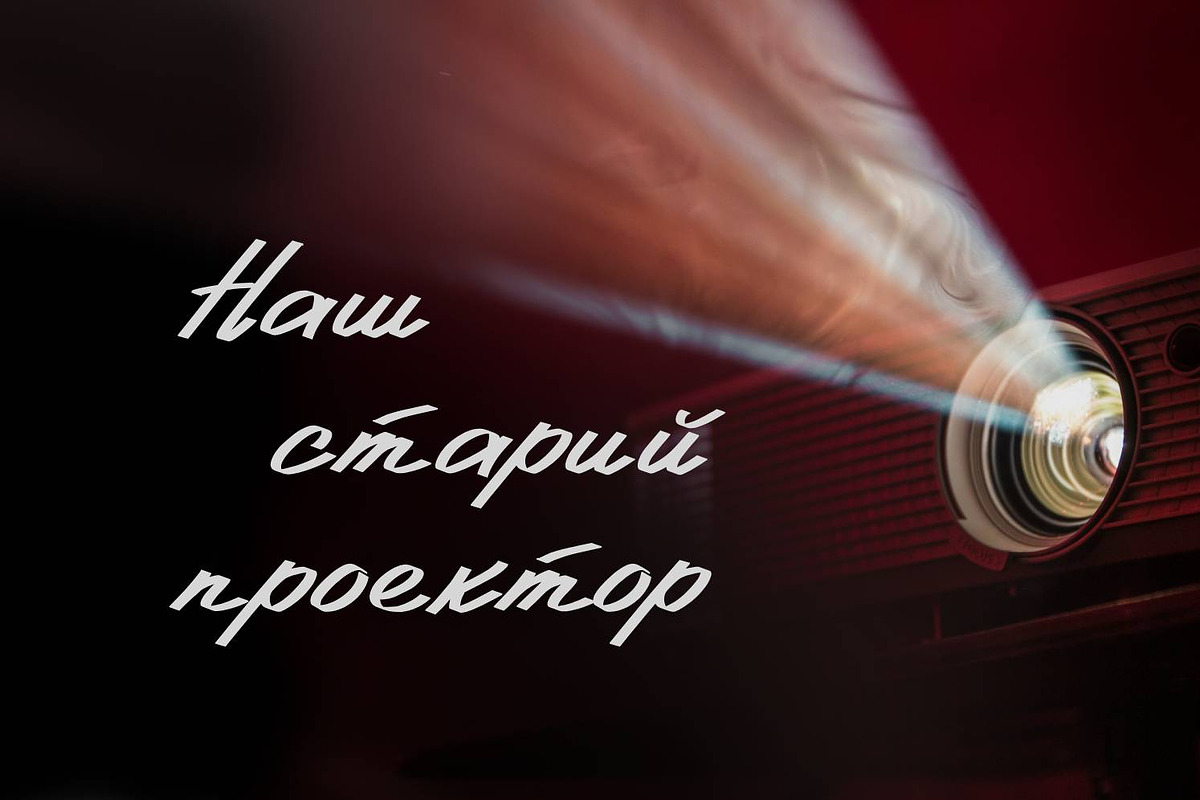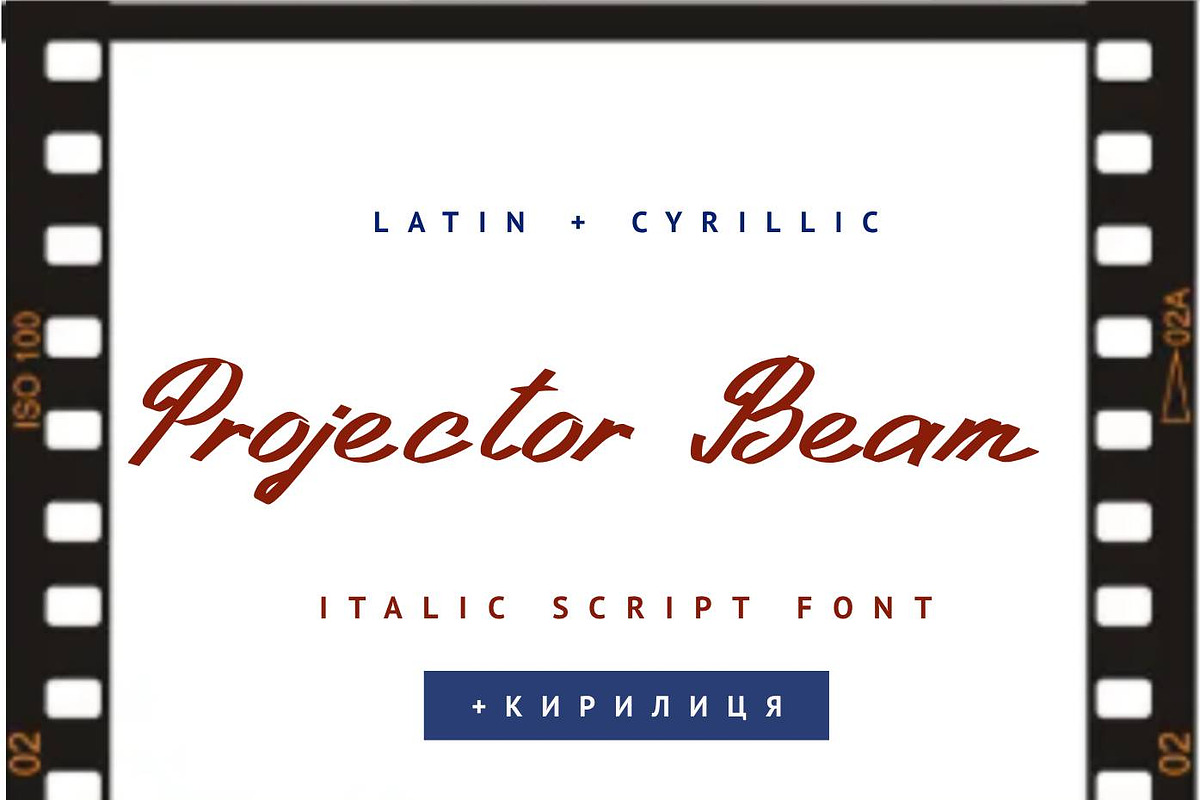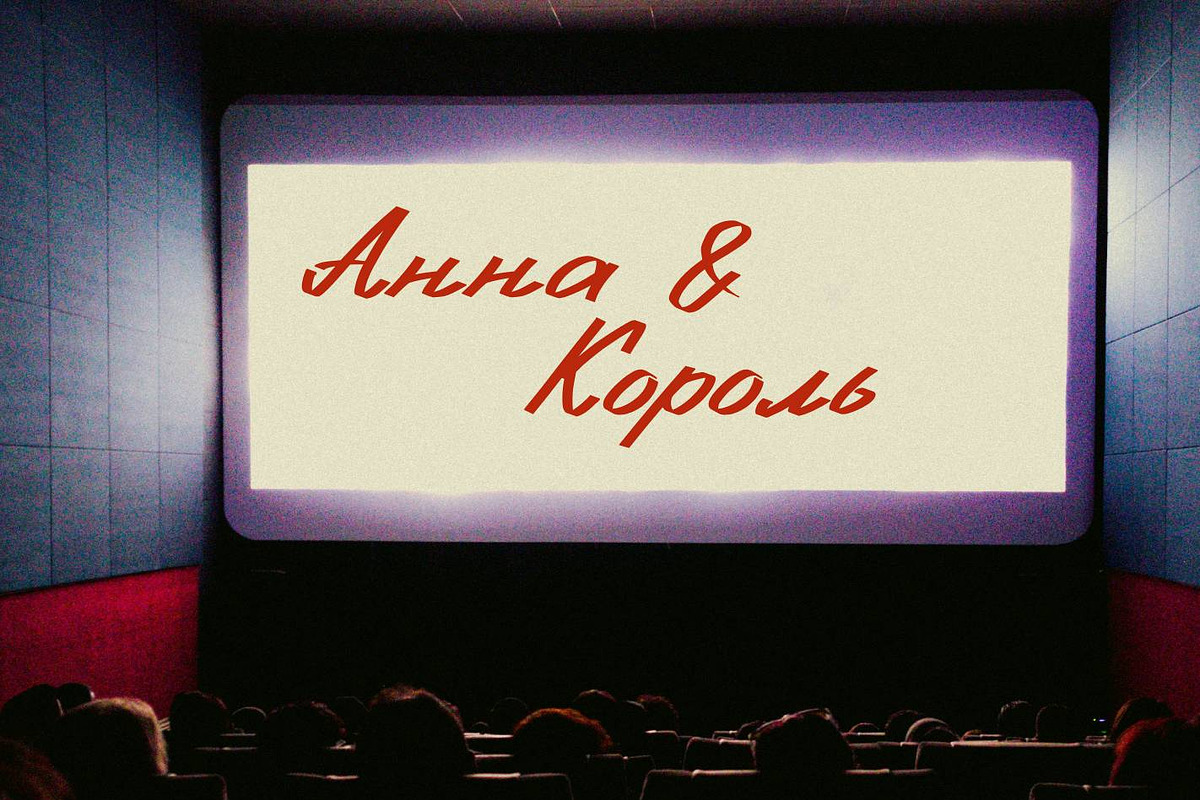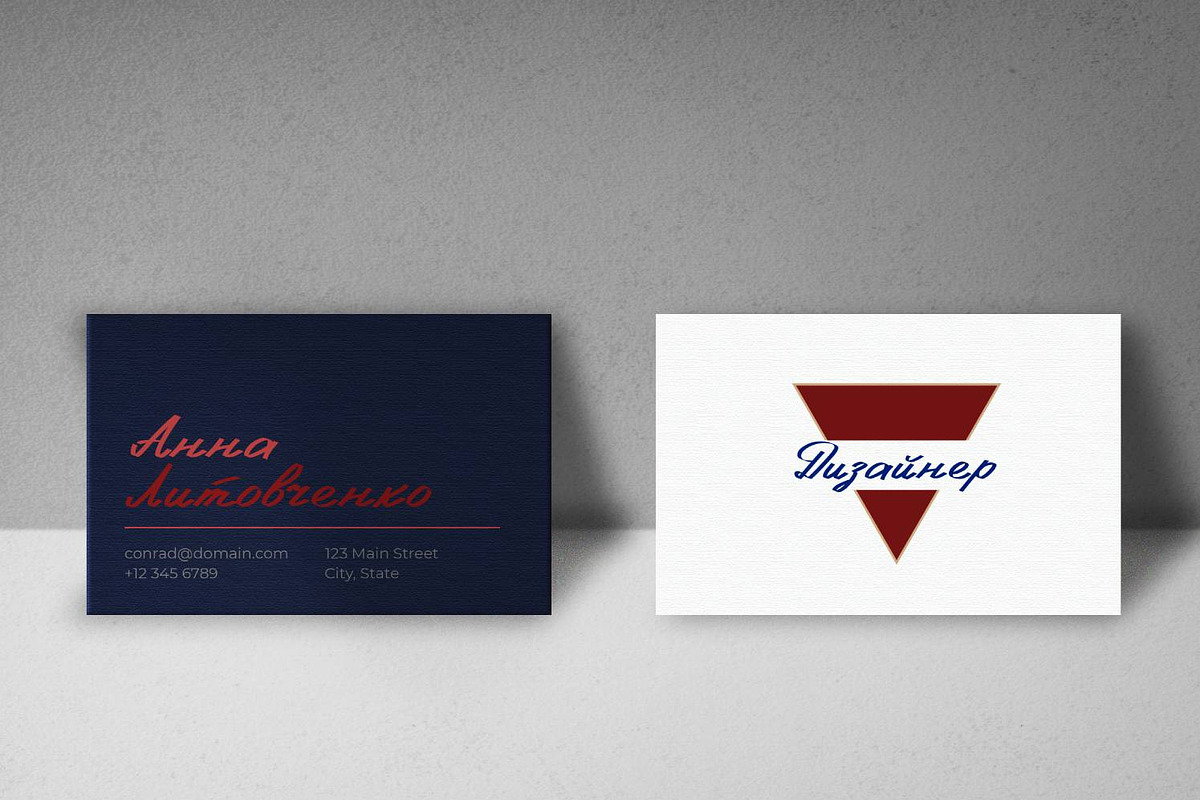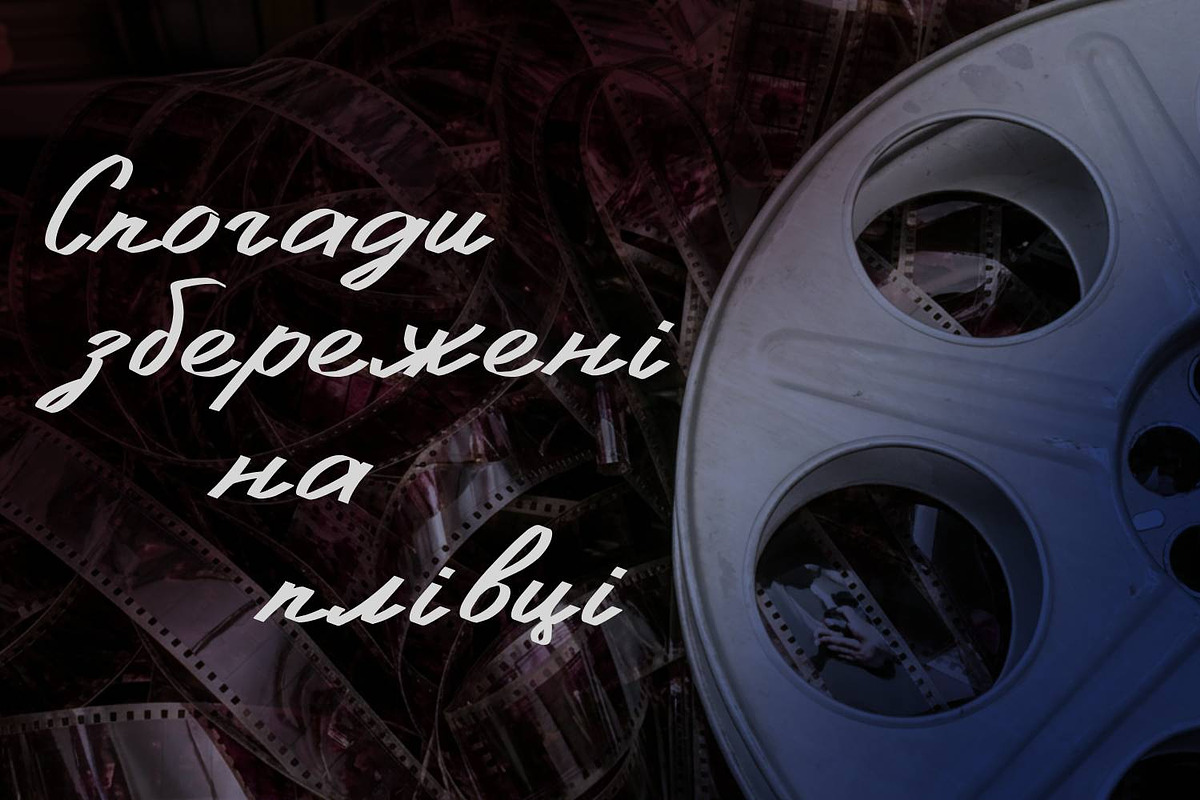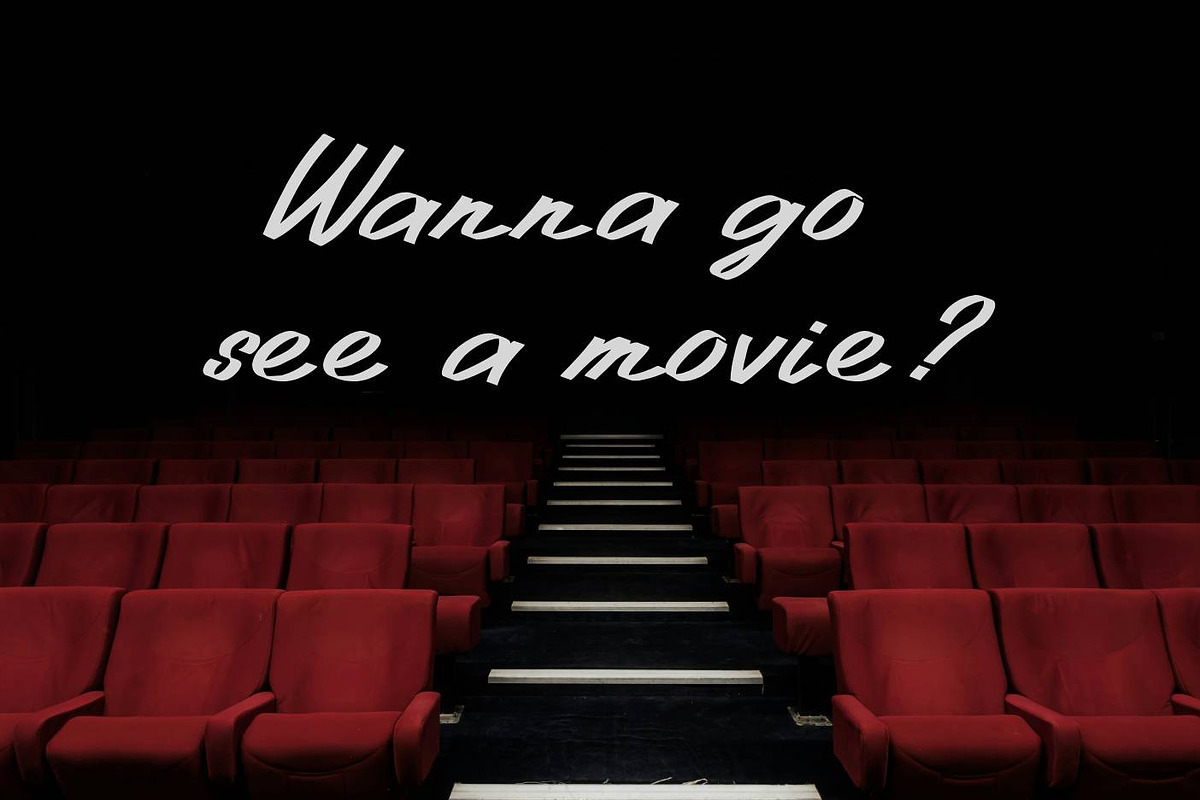
Projector Beam Cyrillic Font
Projector Beam Cyrillic Font is a premium cursive typeface designed to bridge the gap between traditional Slavic calligraphy and modern digital aesthetics. It transforms the often-rigid structure of the Cyrillic alphabet into a fluid, rhythmic dance of strokes, capturing the "soul" of handwritten manuscript while maintaining surgical precision in its kerning and legibility. Branding & Identity Luxury logos, signatures for personal brands, and high-end packaging for artisanal products. Editorial Design Pull-quotes in magazines, poetic interludes, or stylized headings in digital storytelling. Event Stationery Elegant wedding invitations, certificates, menu headers, and formal gala programs. Social Media Aesthetic overlays for Instagram Reels, Pinterest inspiration cards, and sophisticated "quote of the day" posts. UI/UX Design Accent elements in "wellness" or "lifestyle" apps where a soft, organic feel is required.